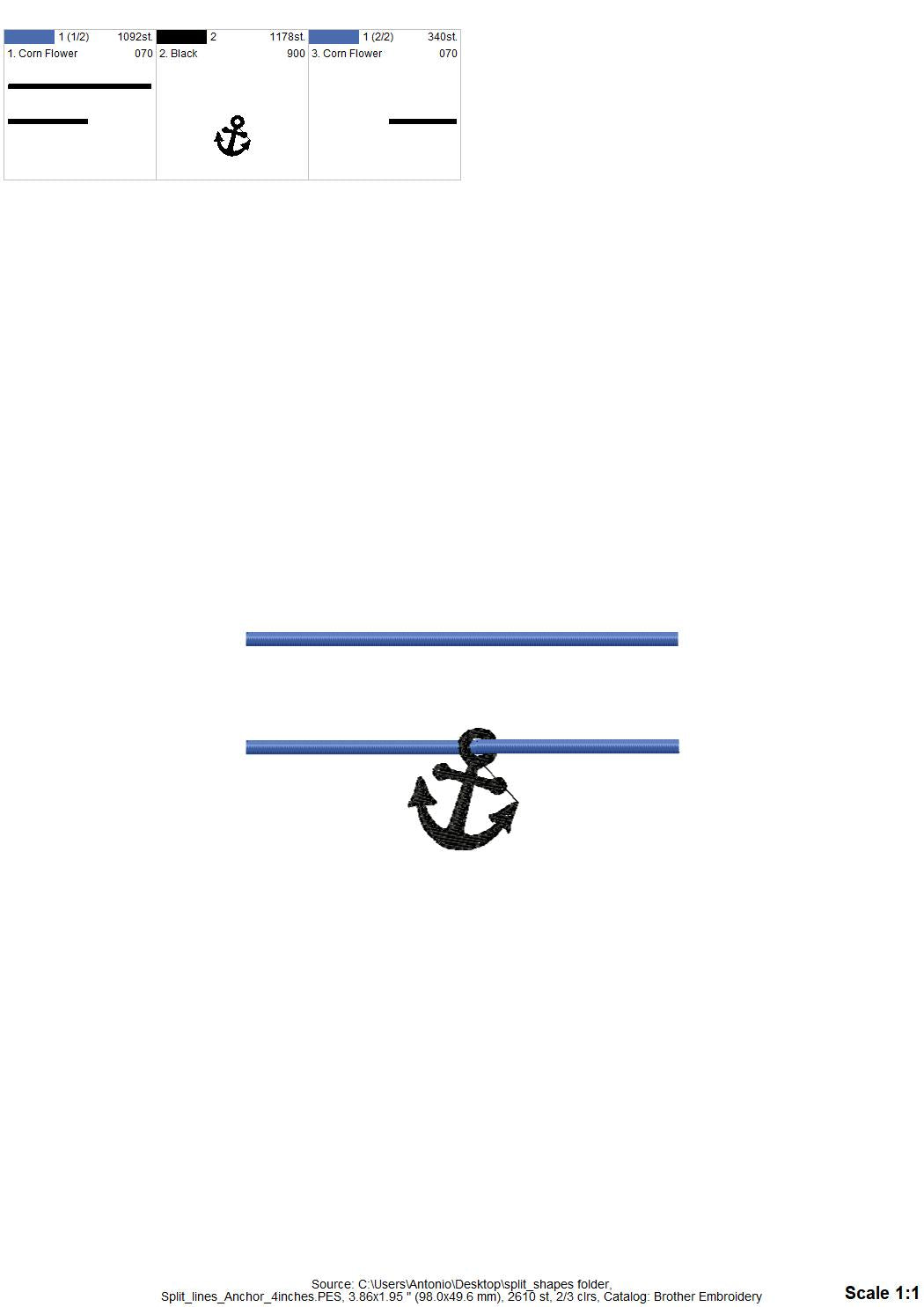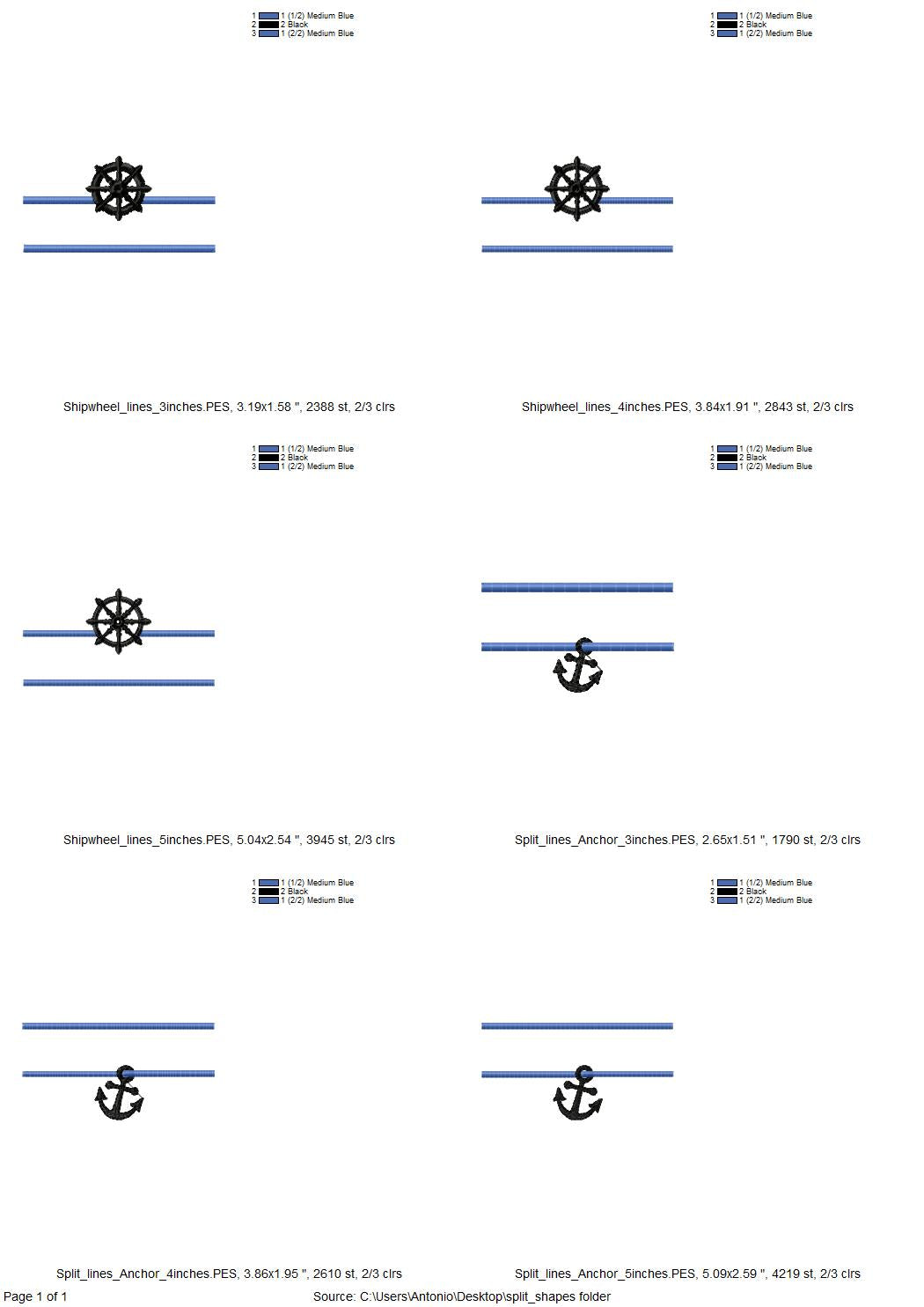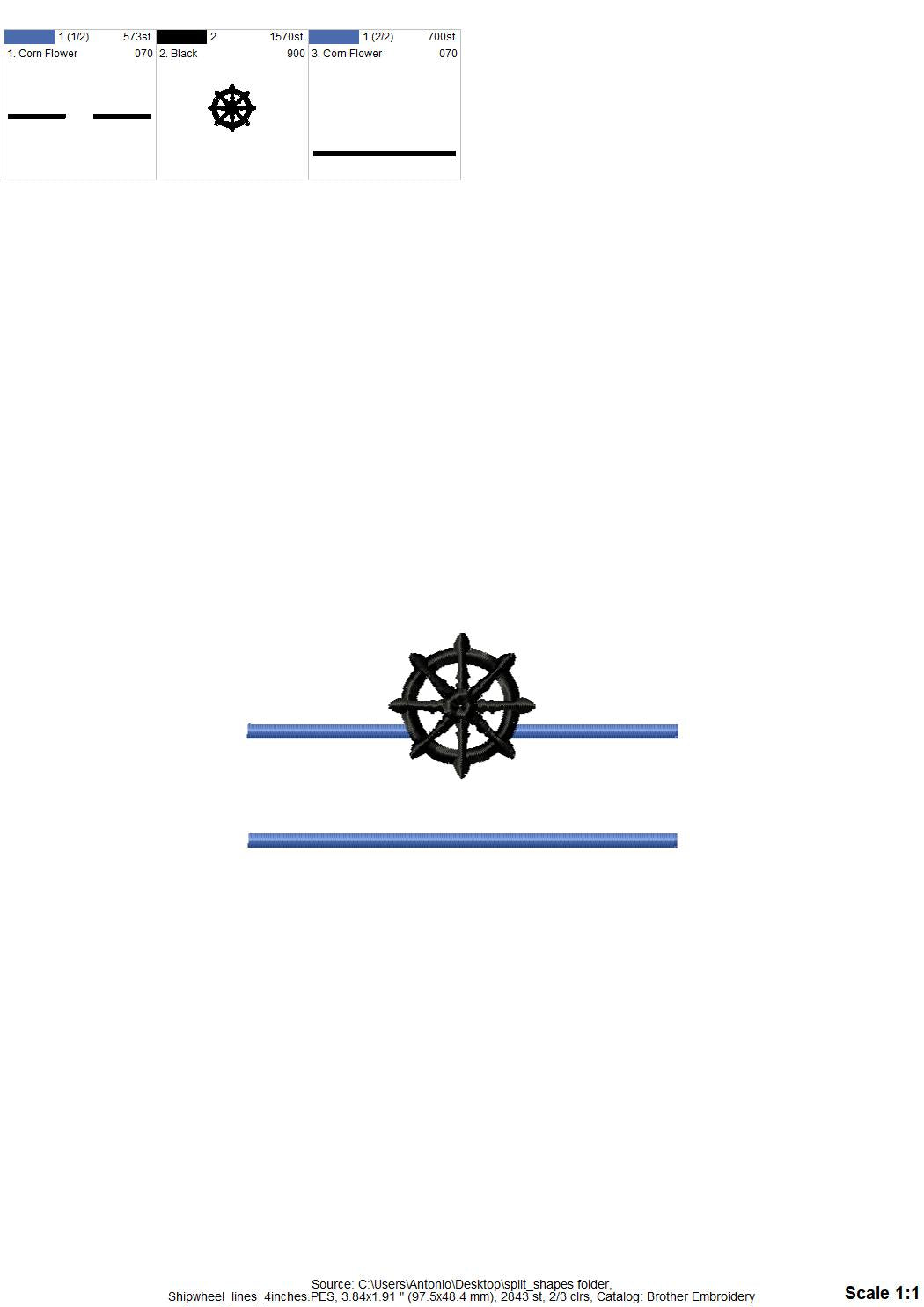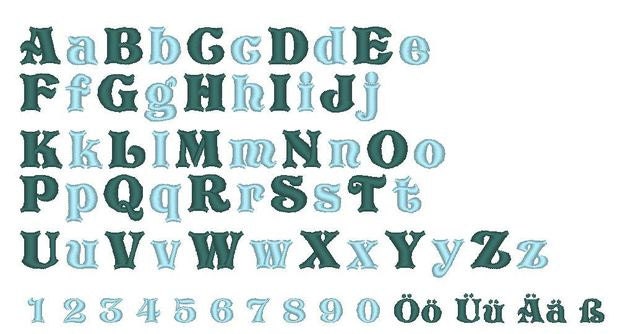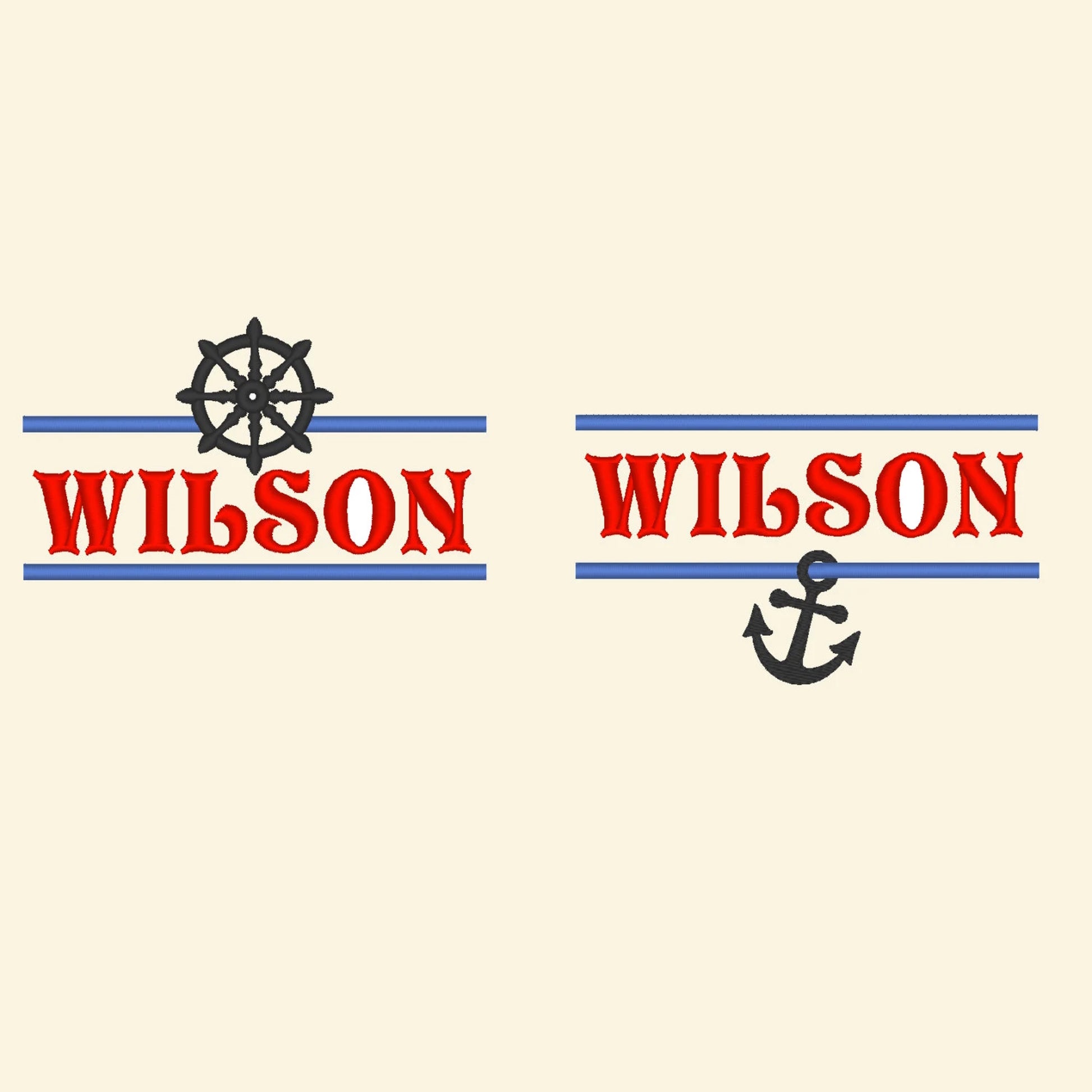
Or click to open the linkA nautical set with a split ship wheel and a split anchor to frame a name, plus a mini font. Great for boys' clothes, baby gifts and beach decor.
Two split frames, a ship wheel and an anchor, each in 3, 4 and 5 inches, with room for a name in the middle. The mini font has uppercase and lowercase letters and numbers in 0.4, 0.6 and 0.8 inches.